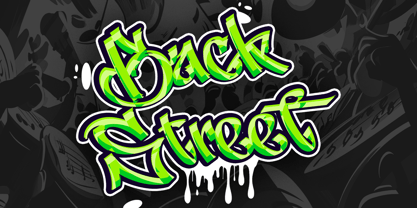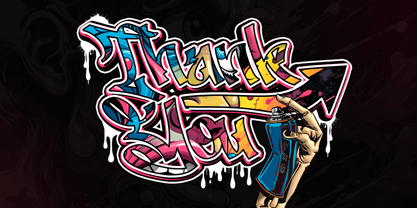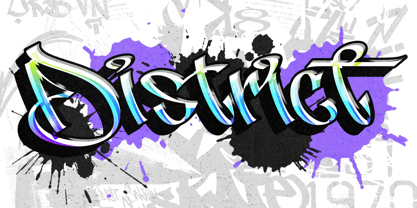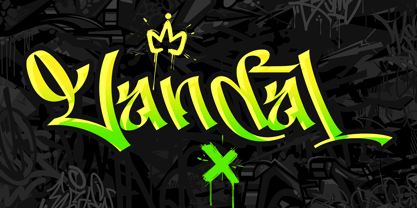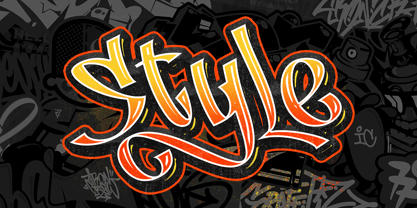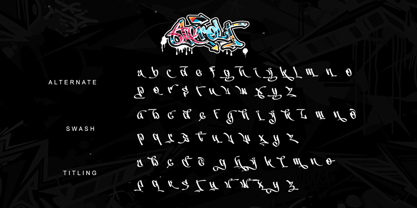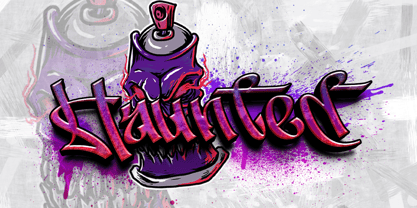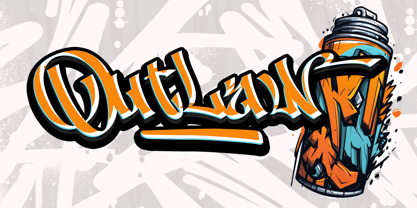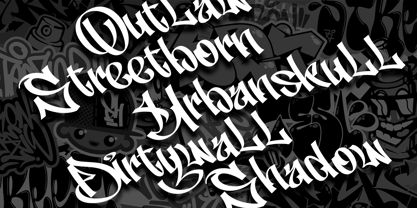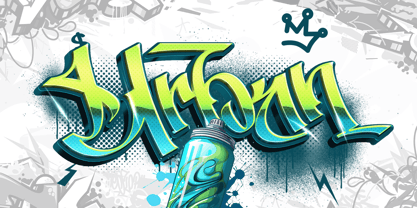
Aerolt
por Letterara
La familia tipográfica Aerolt fue diseñada por Thomas Aradea y publicada por Letterara. Aerolt contiene 2 estilos y opciones de paquete familiar.
Aerolt is a bold graffiti-inspired font built for raw expression and street-level impact. Fueled by urban energy and rebellious attitude, Aerolt features dynamic strokes and expressive letterforms that bring an authentic graffiti vibe to every design. Its handcrafted style delivers movement, confidence, and personality—perfect for projects that demand attention.   Designed for street art visuals, music covers, branding, posters, YouTube thumbnails, and Music band logo, Aerolt transforms words into powerful statements. Fully PUA encoded, this font gives you instant access to unique glyphs and stylistic alternates, allowing effortless customization and creative freedom. Break the rules, own the streets, and let Aerolt speak loudly through your designs.
Diseñadores: Thomas Aradea
Editorial: Letterara
Fundición: Letterara
Propietario del diseño: Letterara